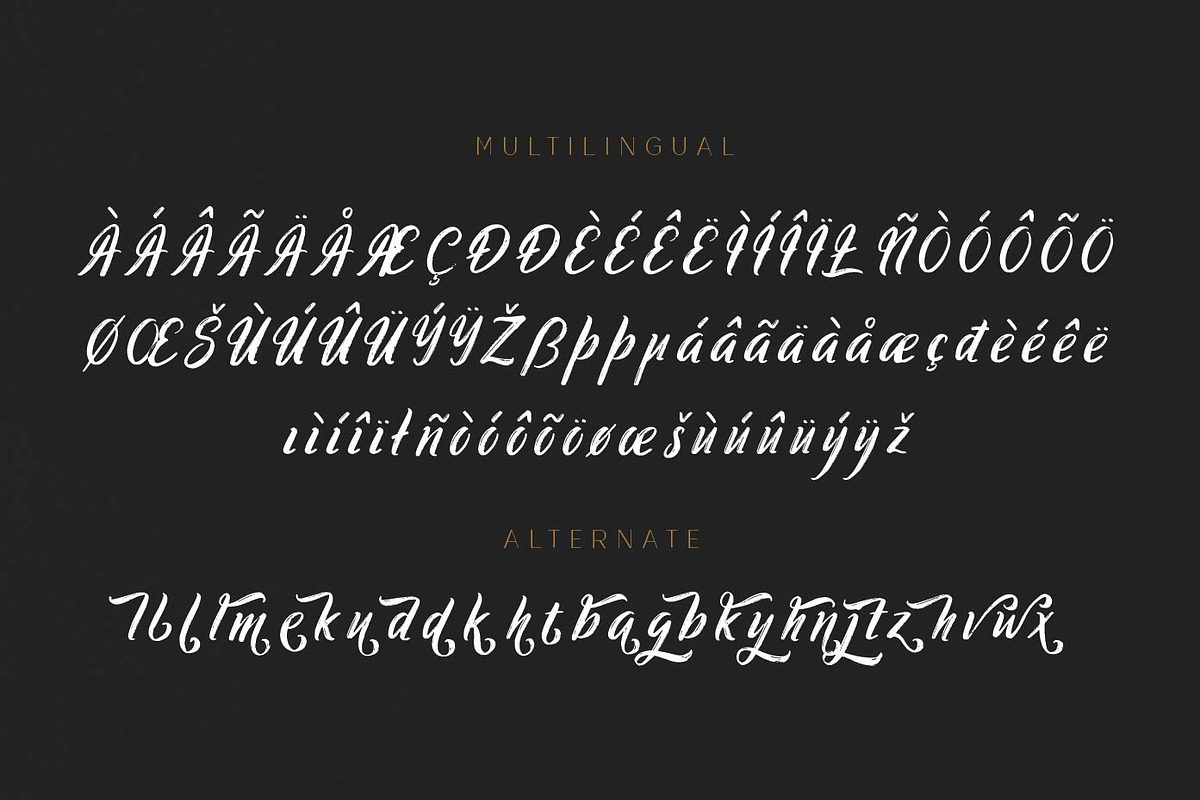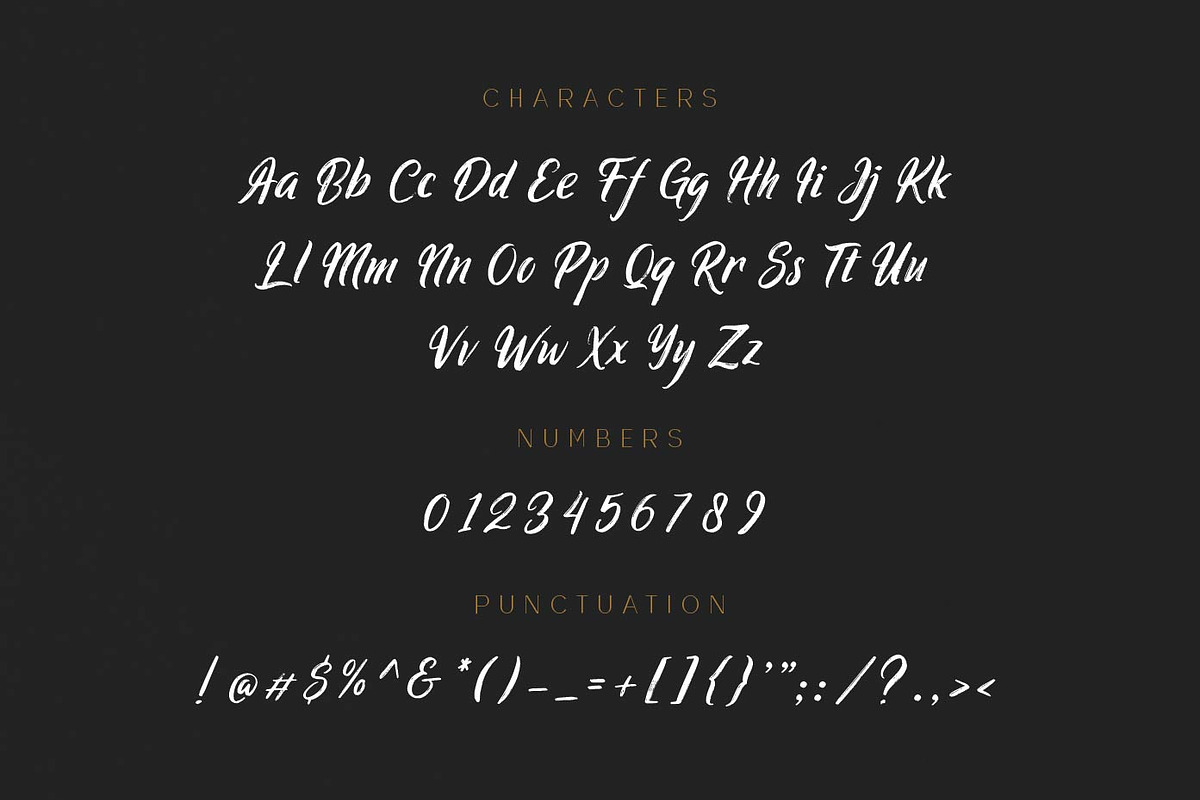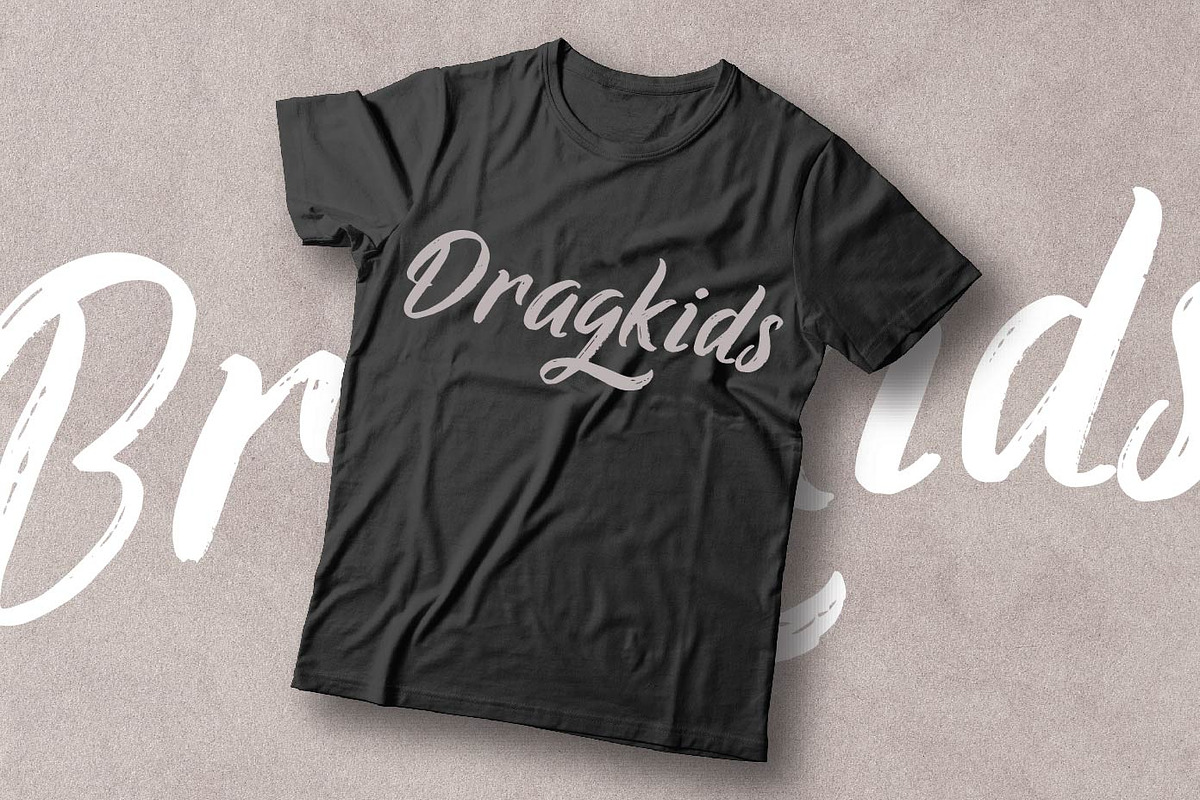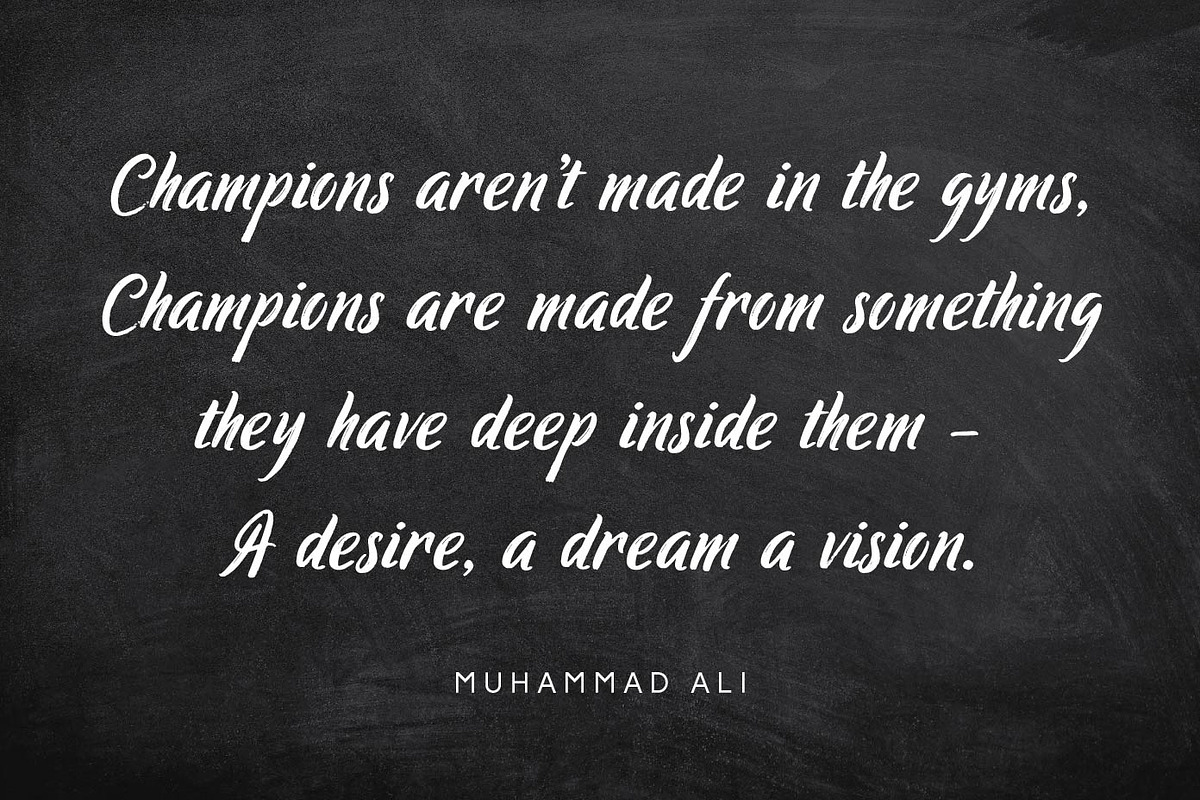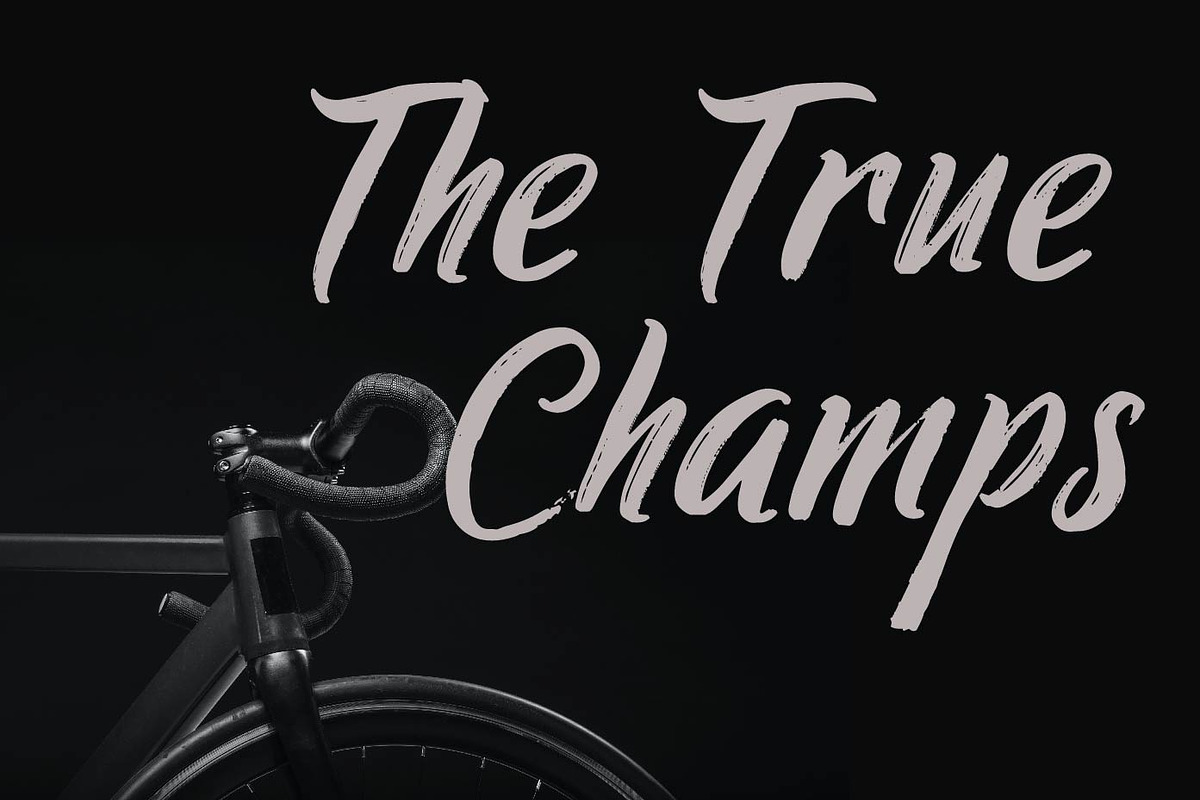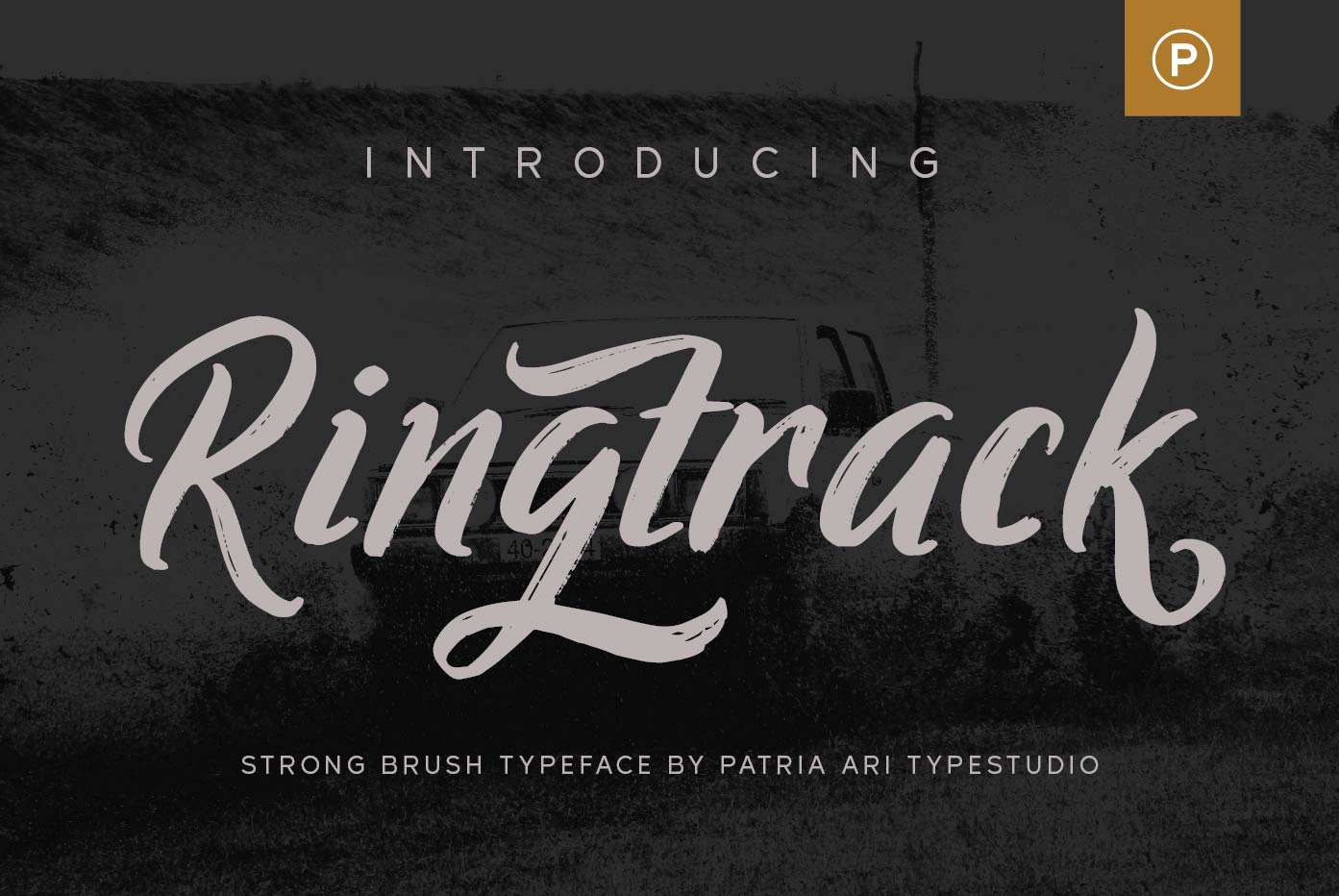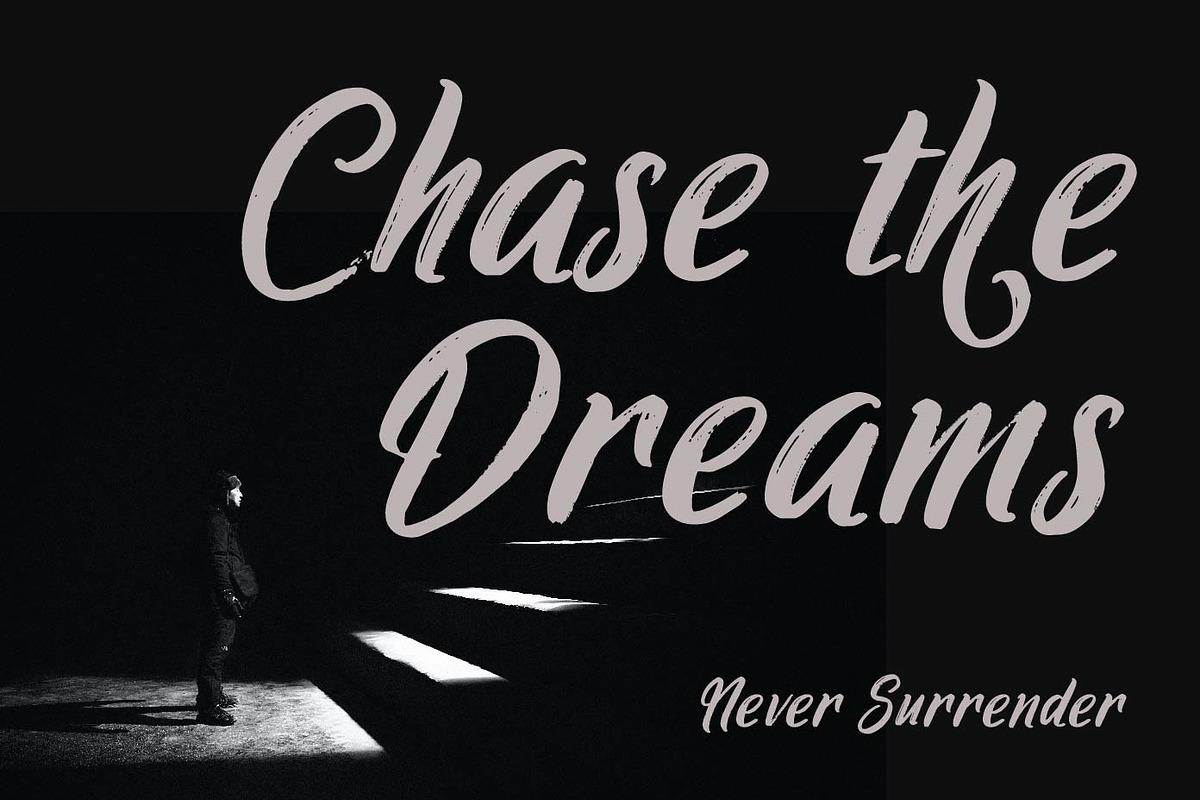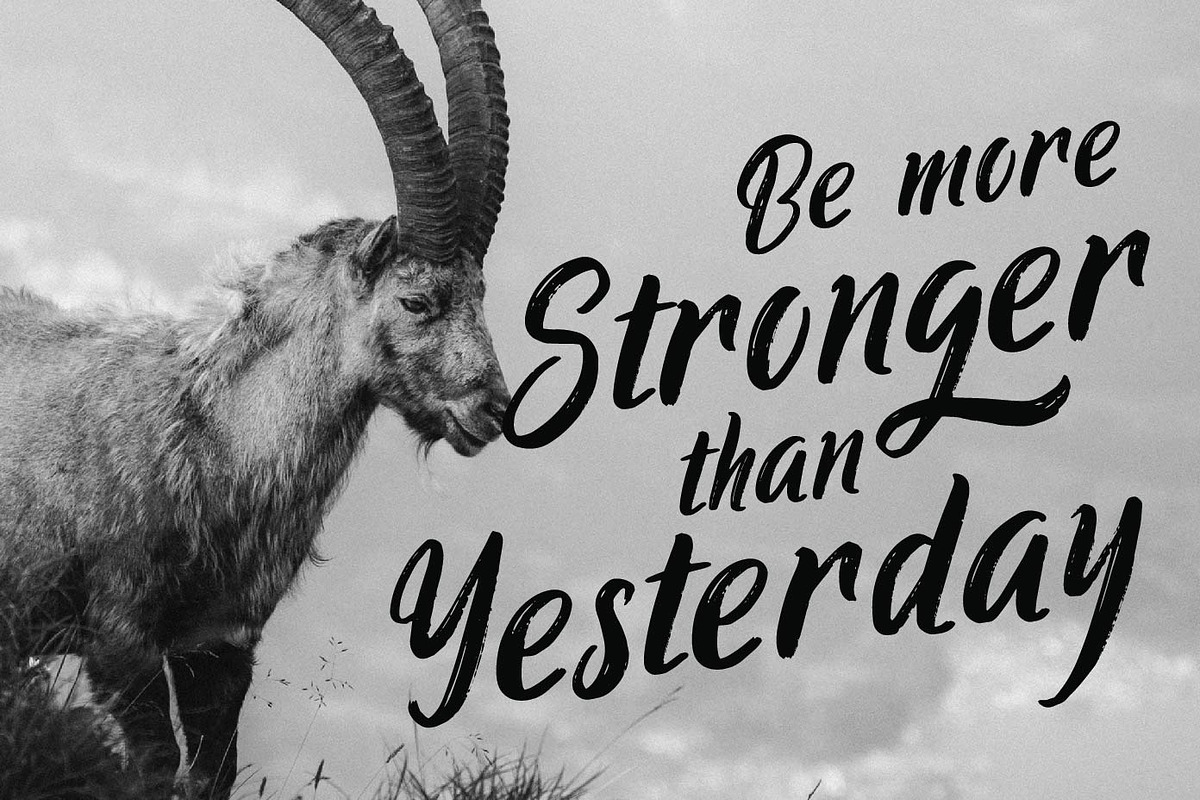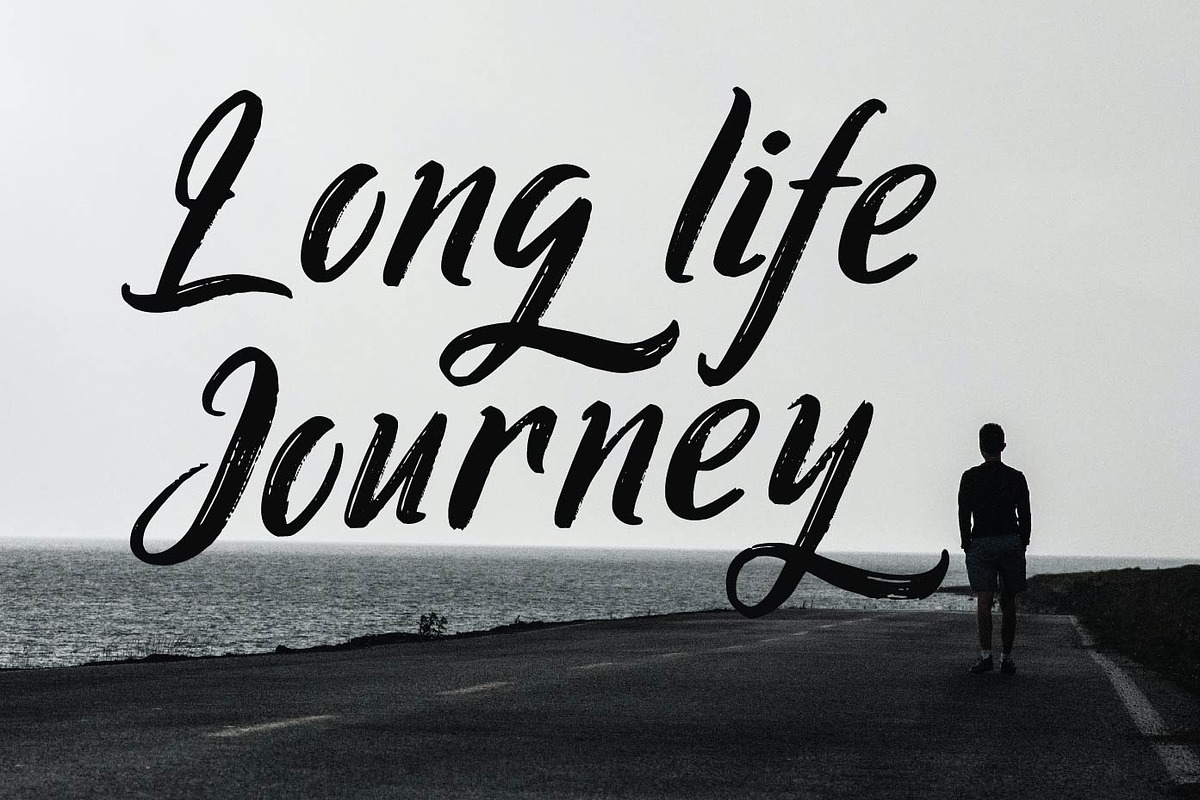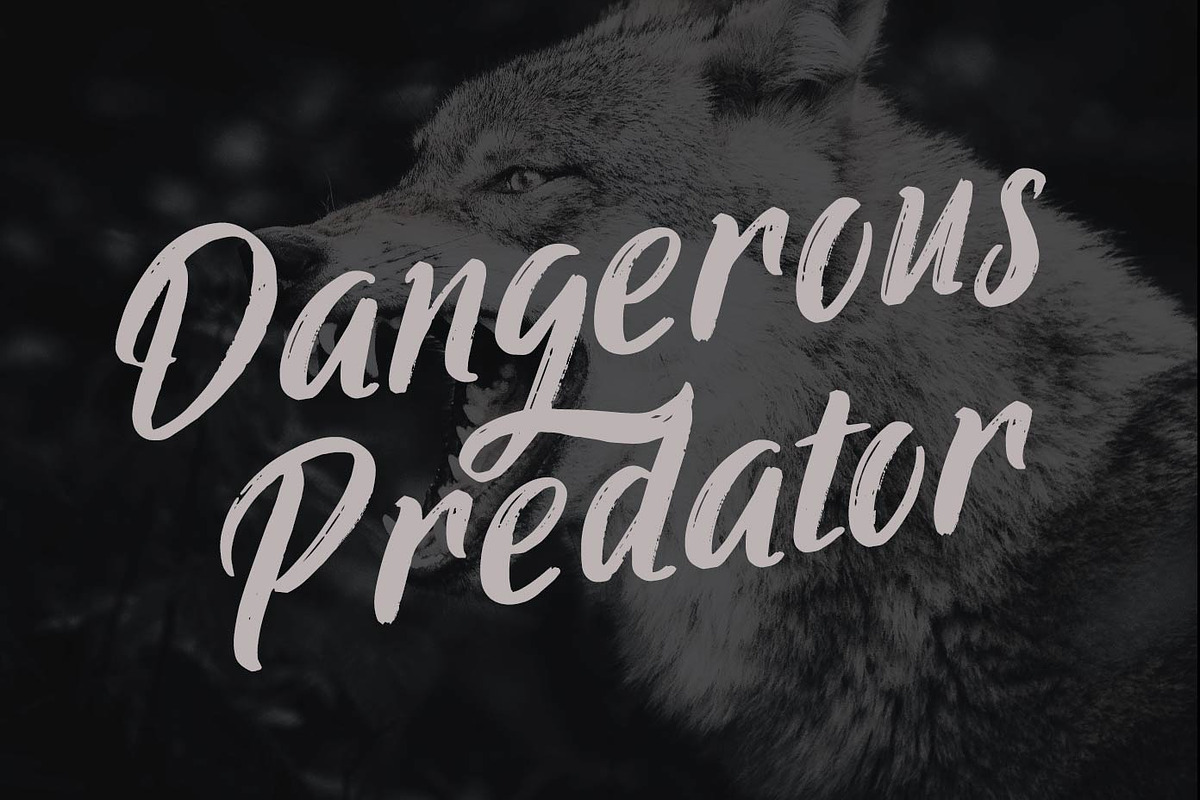
Ringtrack - Rough Brush Fonts
Ringtrack is a sharp and strong brush script typeface with variable swashes you can try on.
Fonts featured :
Uppercase Lowercase Numbers Punctuation & symbols Accented characters Alternate characters